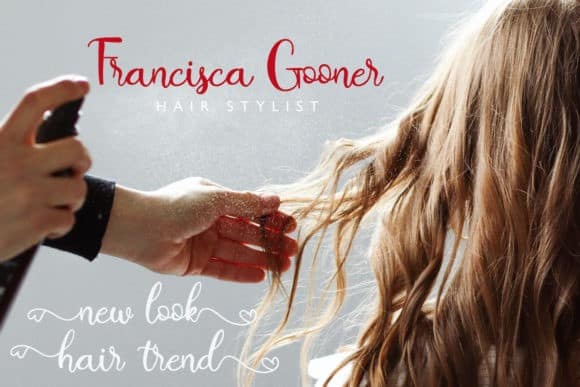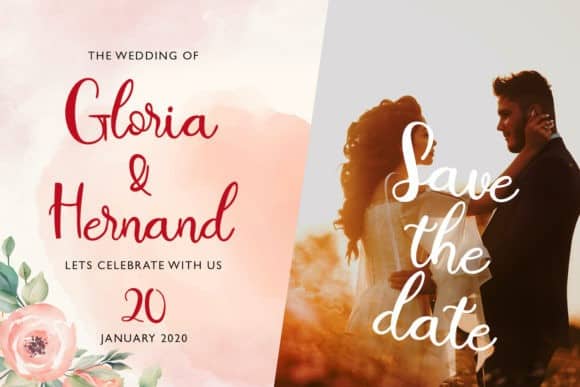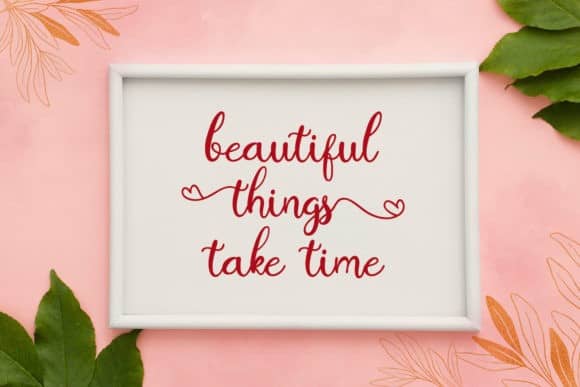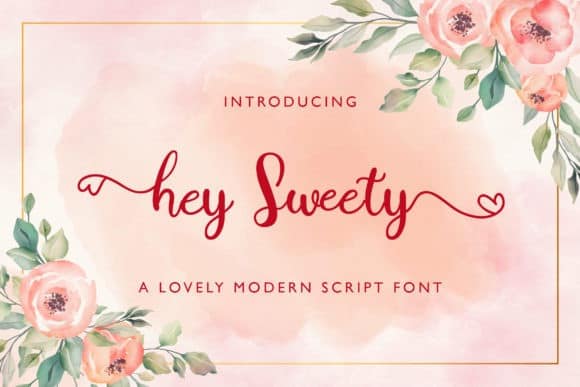
Hey Sweety Calligraphy Font
Introducing Hey Sweety Calligraphy Font. This font was designed by handwriting, and it has a modern and unique forms of calligraphy, the writing style is very natural. Made from font designer named StringLabs. Hey Sweety feels equally charming and elegant. It looks stunning on wedding invitations, thank you cards, quotes, greeting cards, logos, business cards and every other design which needs a handwritten touch.